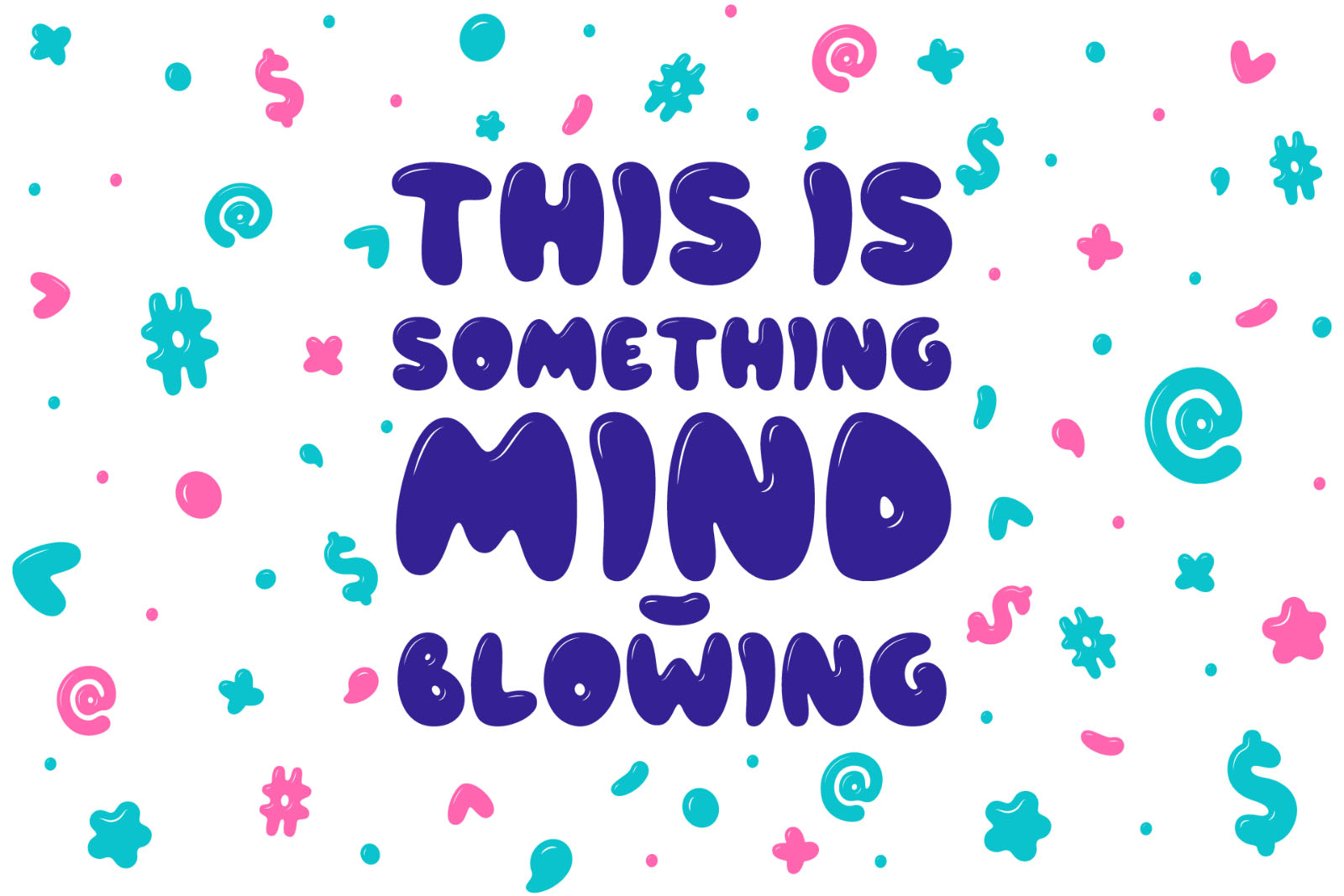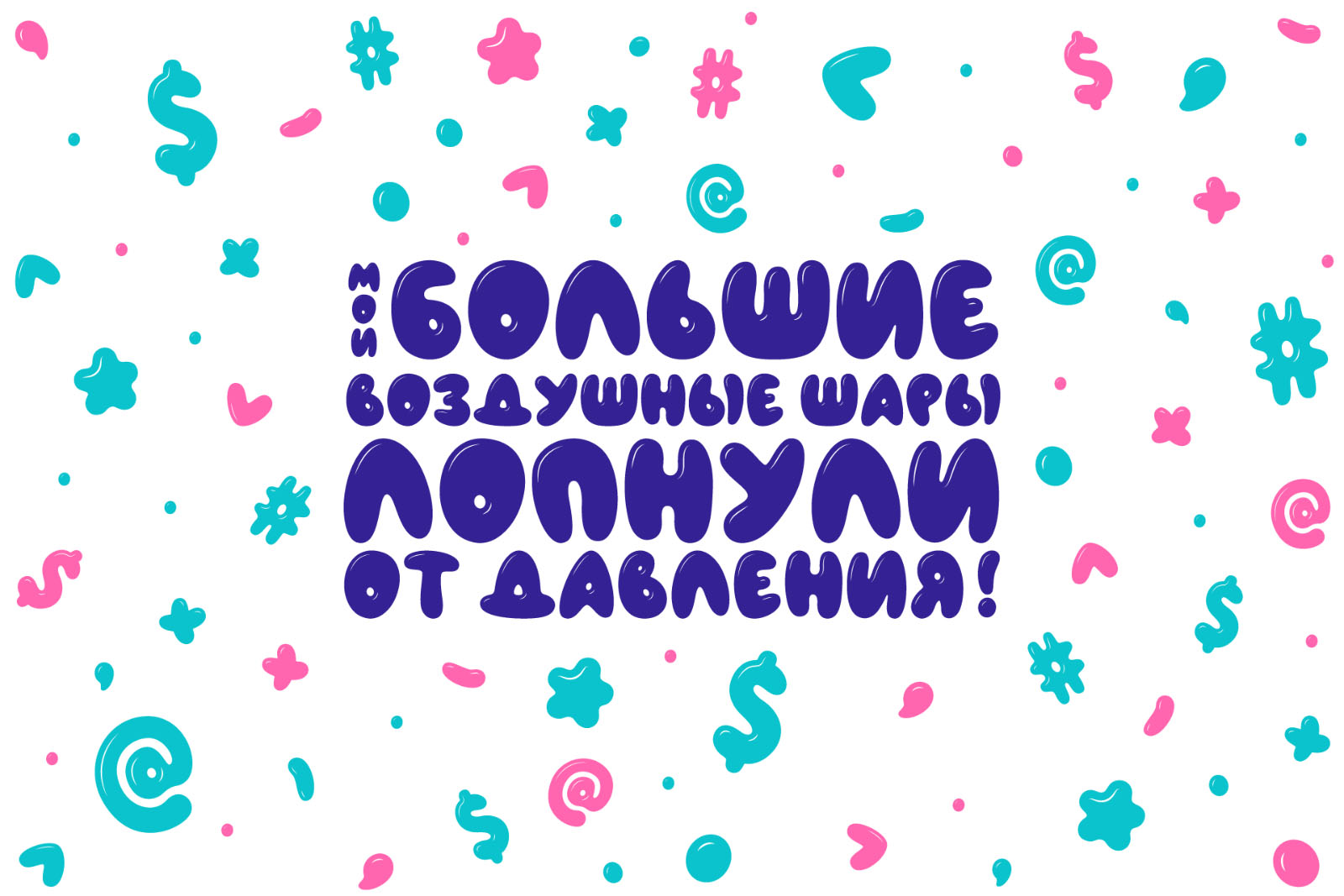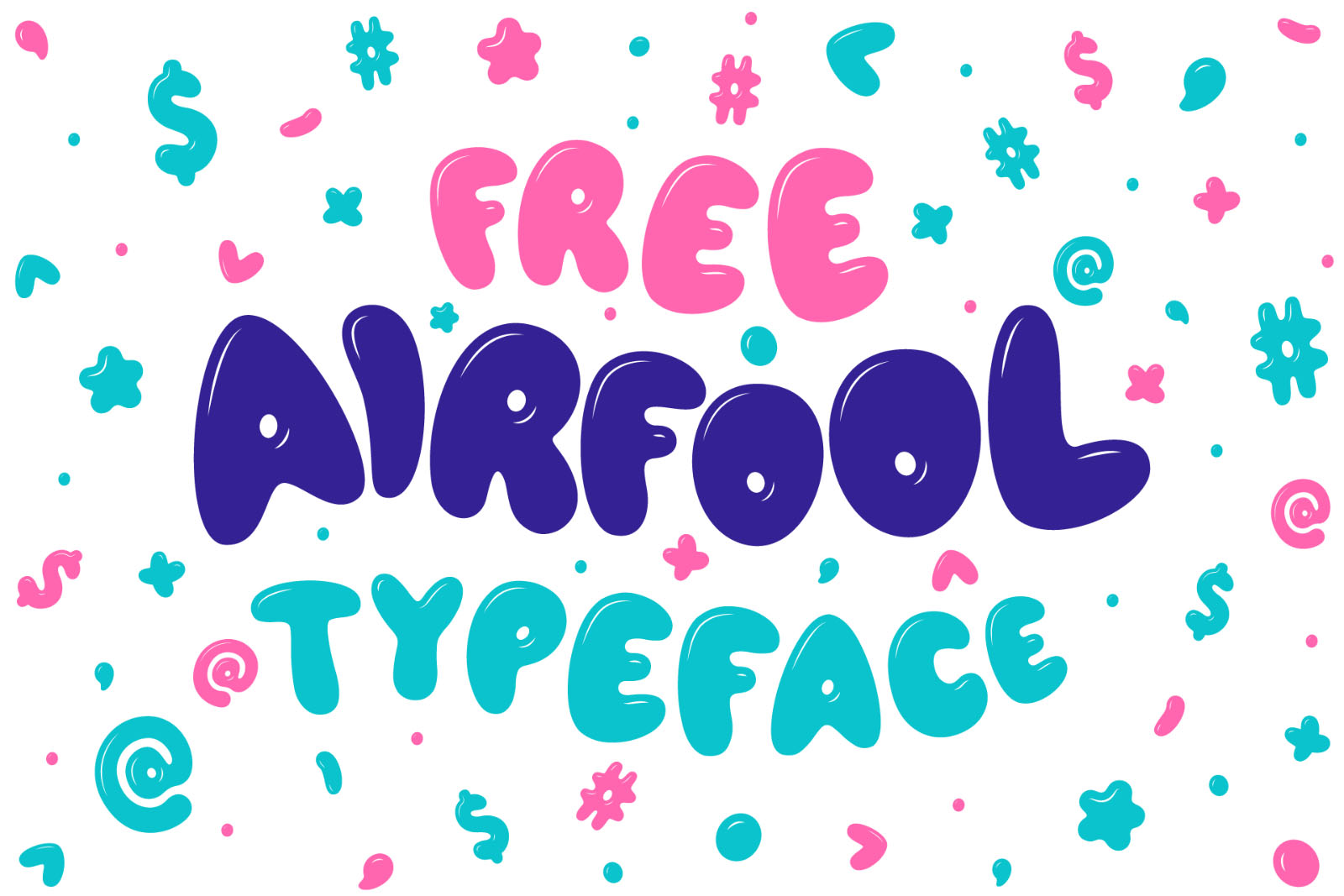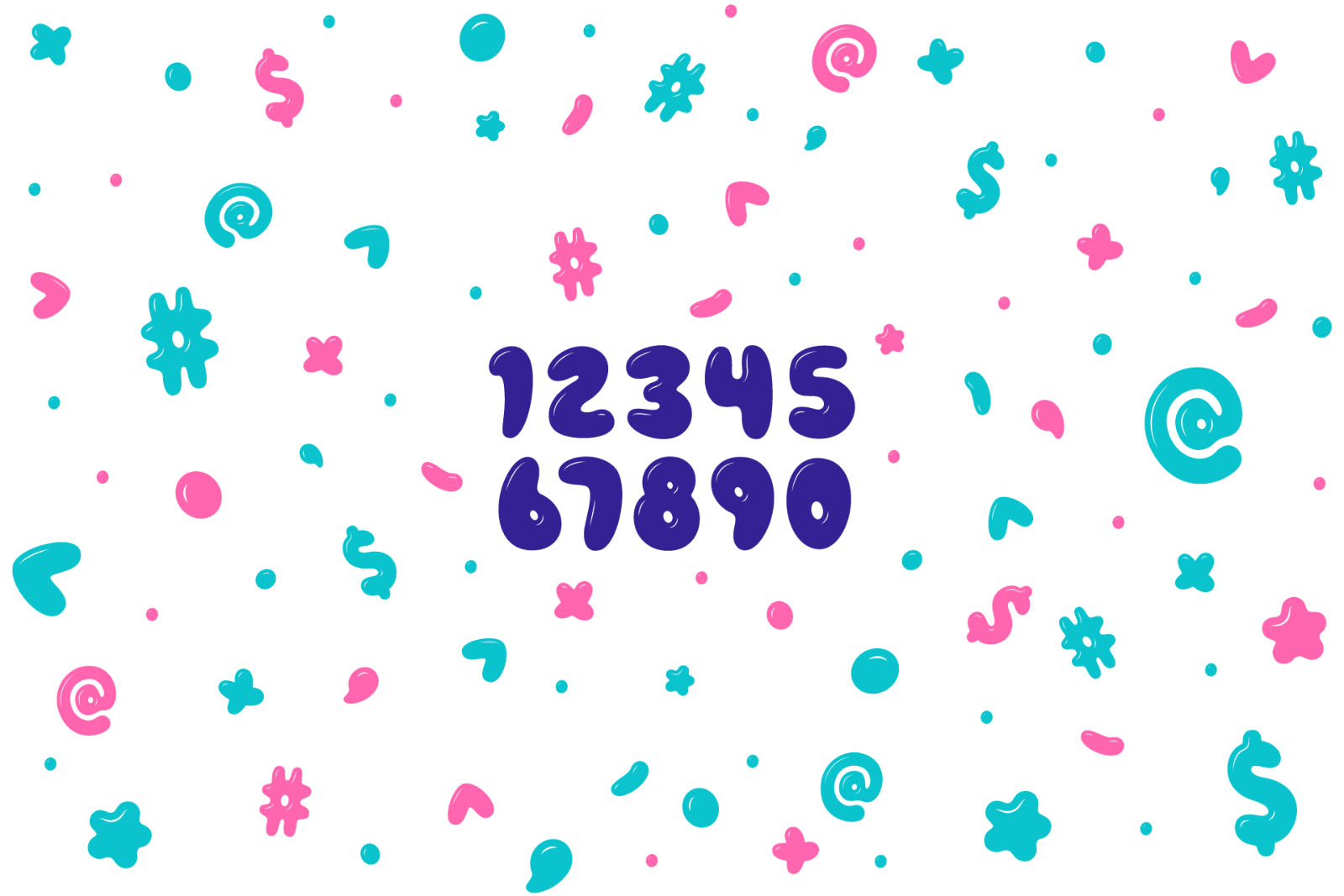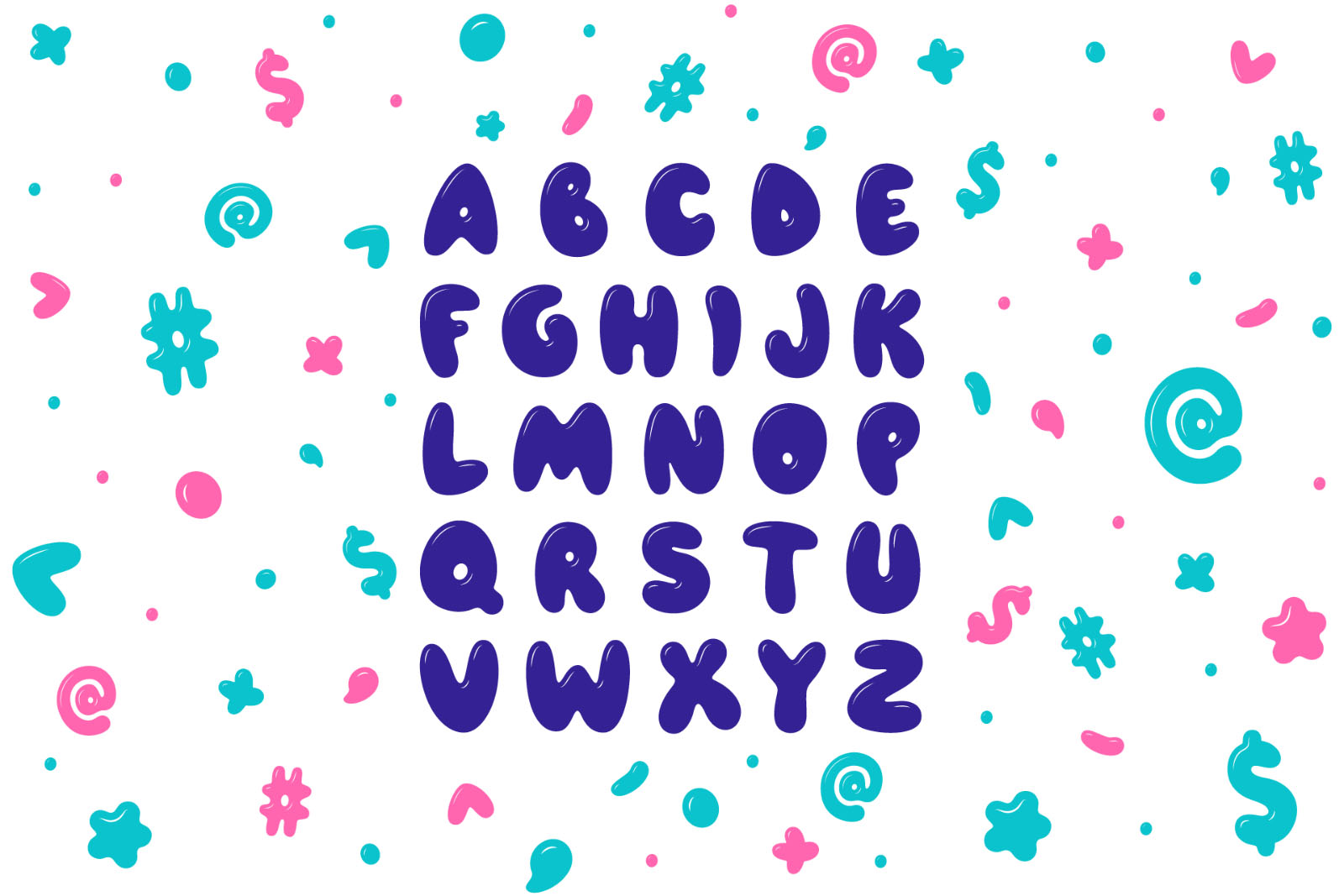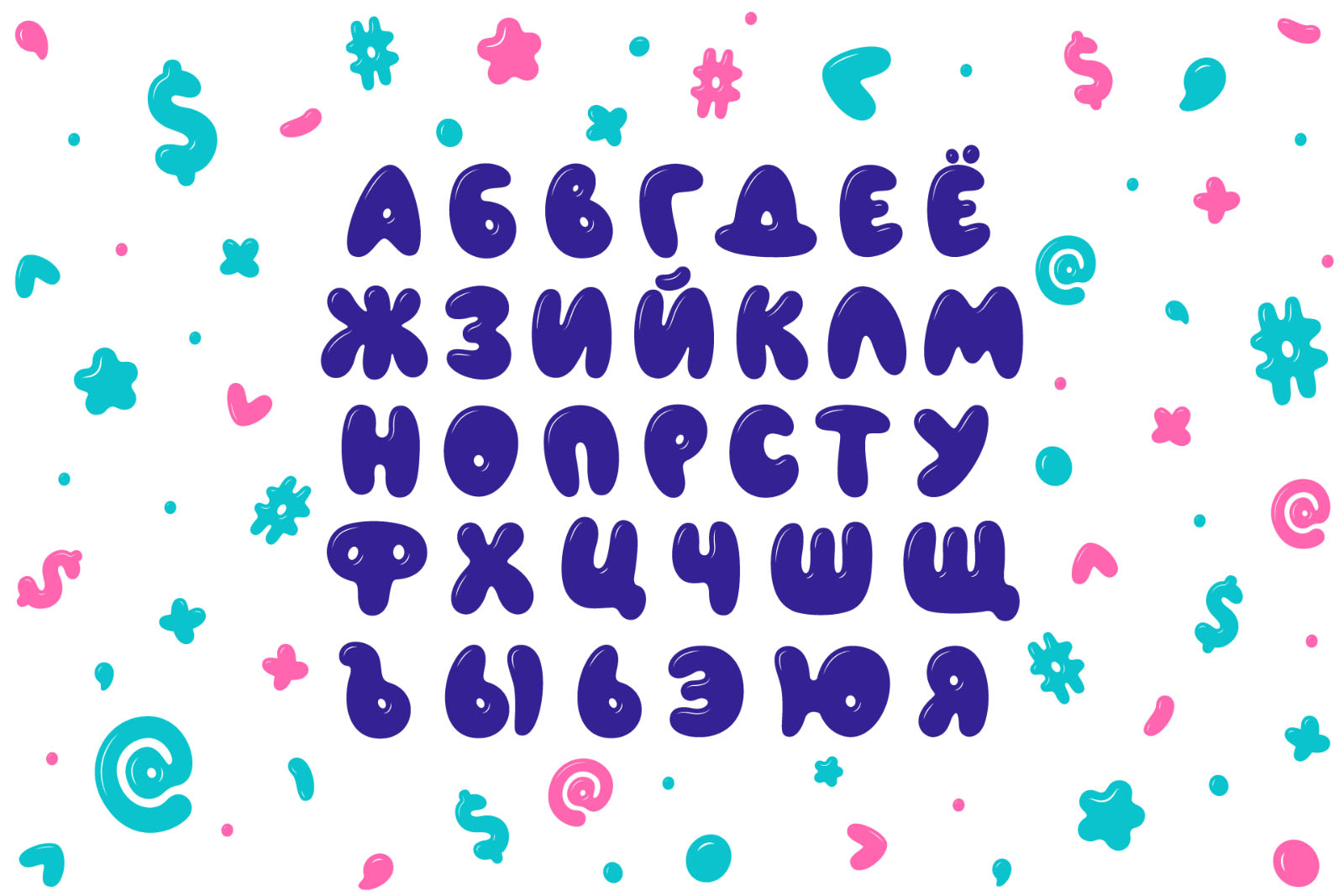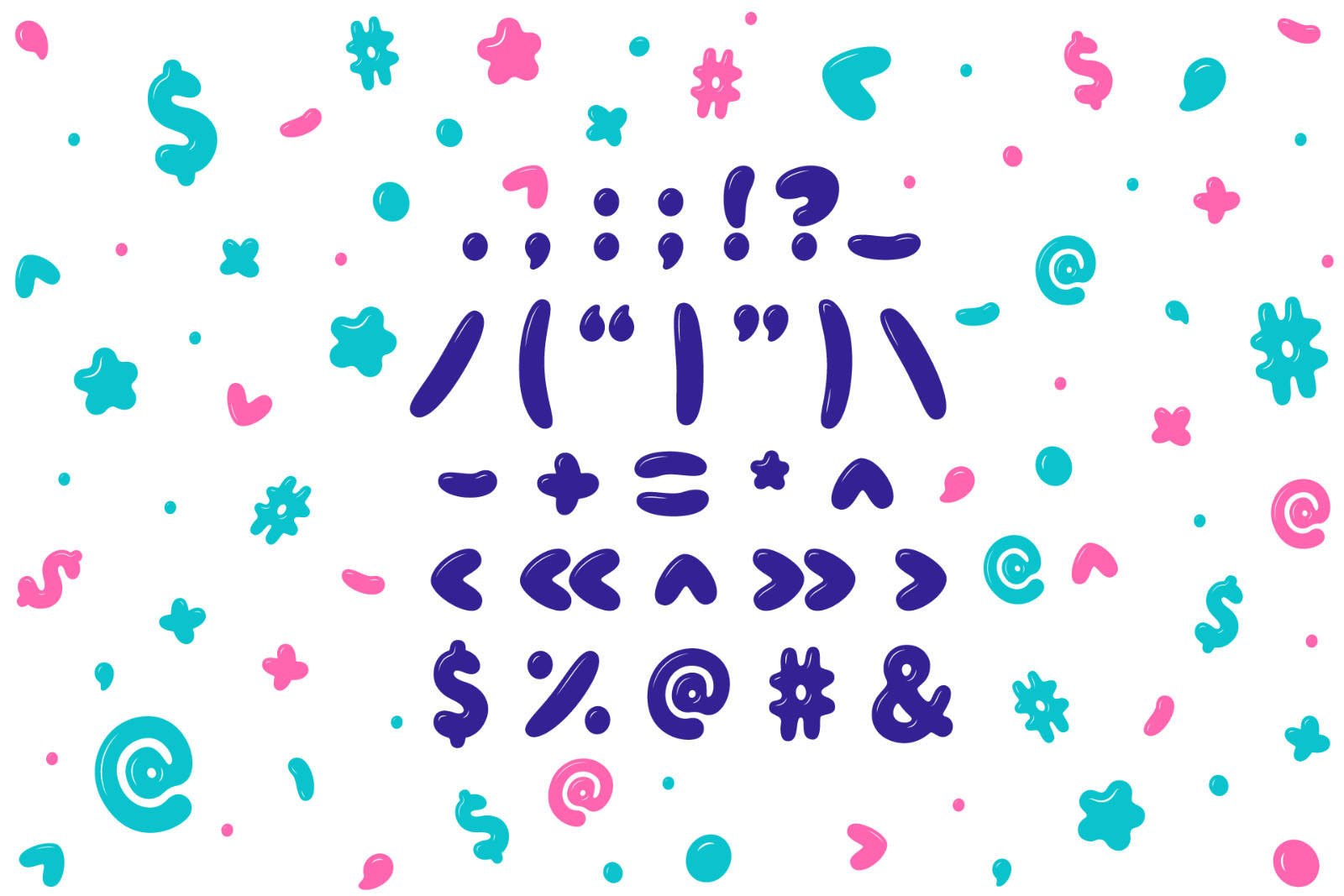
Airfool Balloon Style Font
This is a funny Airfool Balloon style font. This font is perfect for adding a personal charm to your logos, branding, social media, advertisements, invitations, product designs, product packaging, etc. Have fun using it!